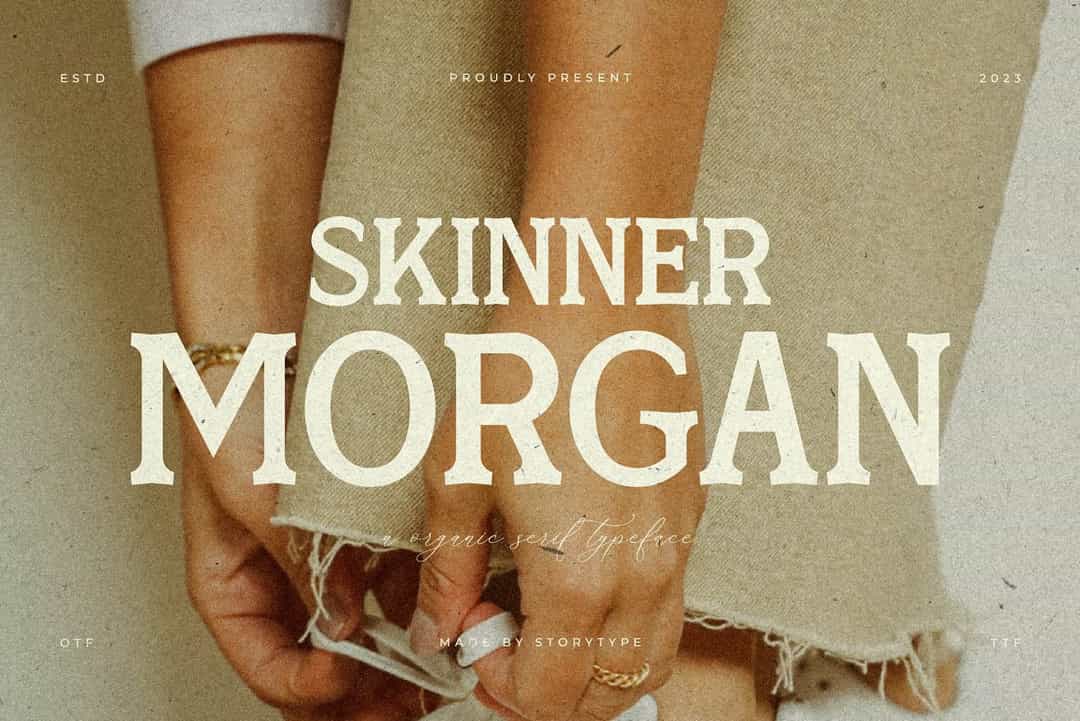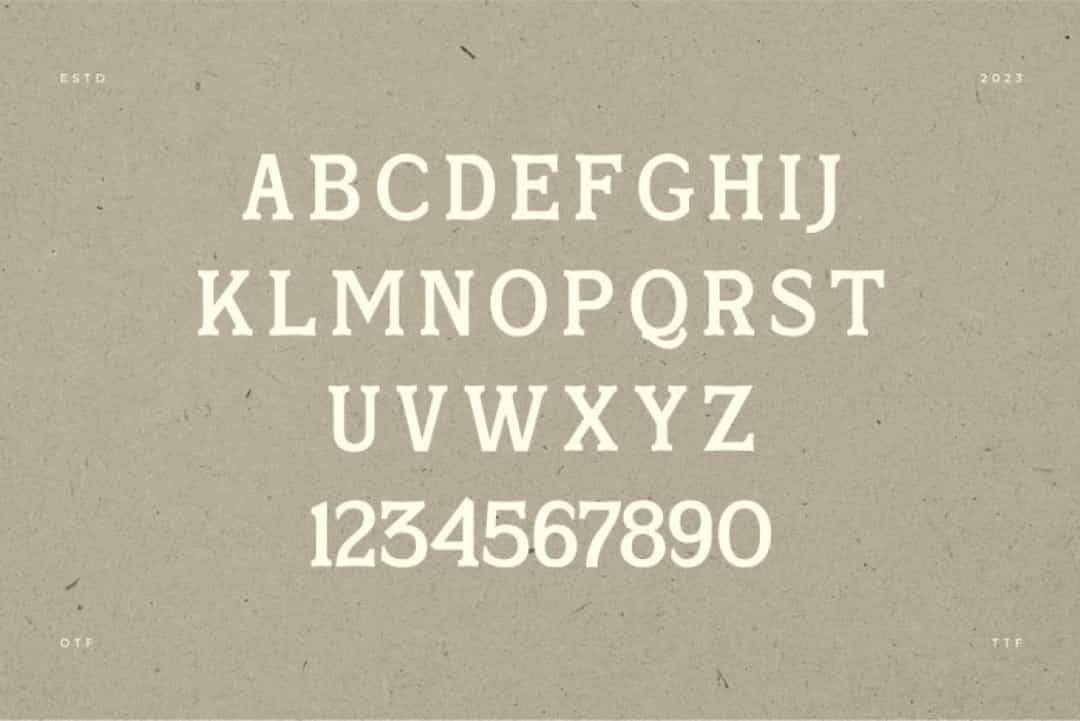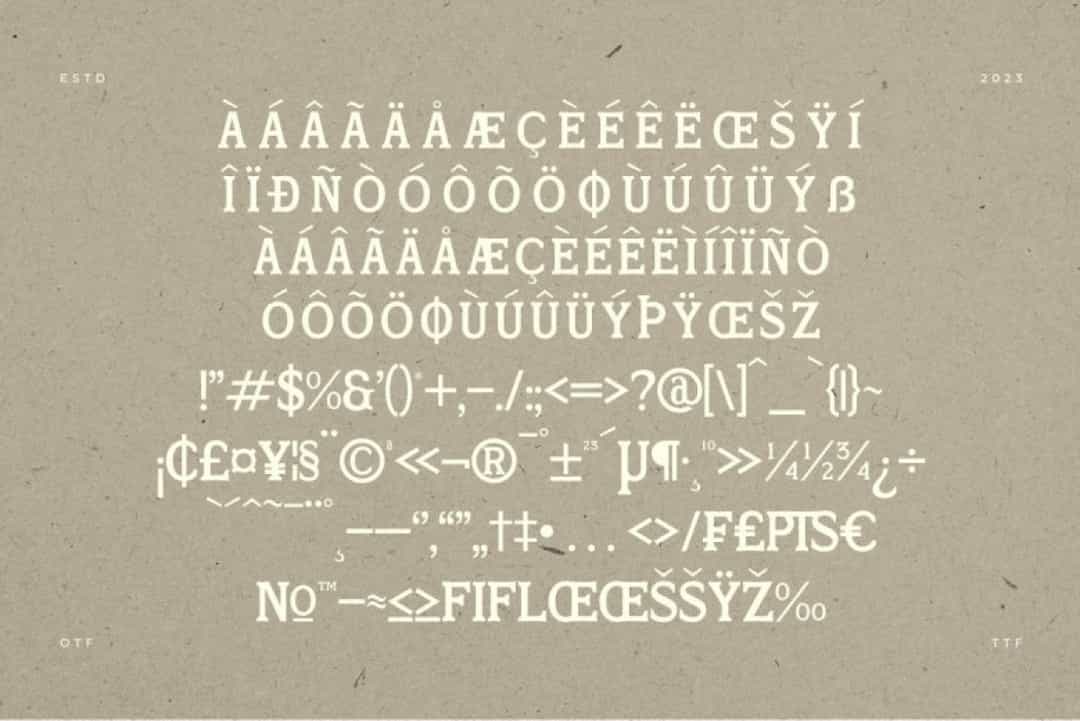
Skinner Morgan is an elegant and modern serif font with its distinguishing style and modern appearance, which makes it suitable for creating sophisticated logos, movie or book covers, fashion label clothing labels, magazines lettering as well as quotes. This typeface offers endless creative potential.